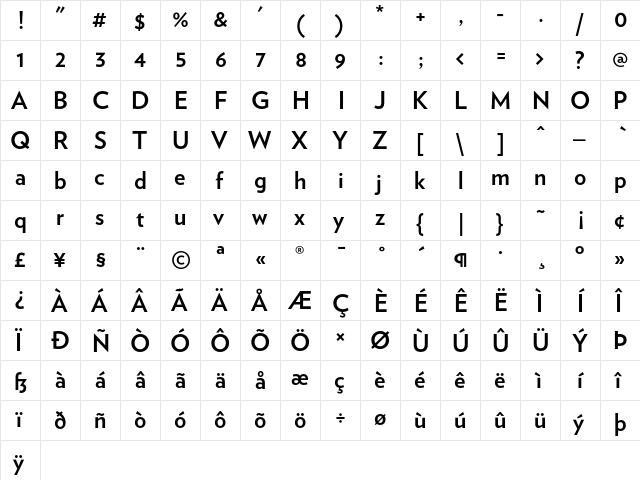
Verlag Bold
| Foundry | Hoefler & Frere-Jones |
| Designer | Hoefler & Frere-Jones |
Design Context for Verlag Typeface
Verlag is a composed and adaptable typeface that performs quietly and consistently across a wide range of design contexts. Its bold stroke weight gives it real presence on the page.